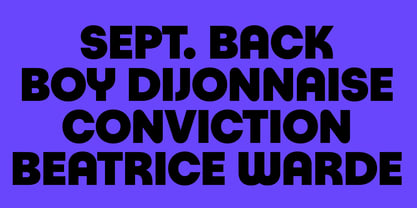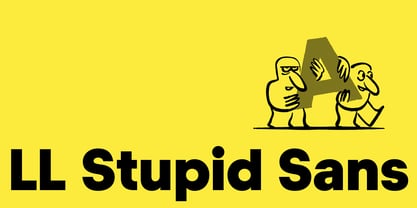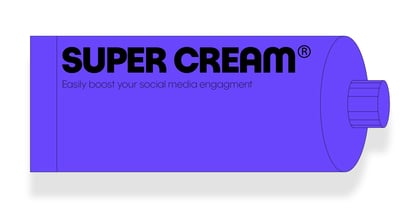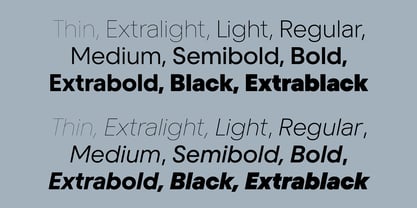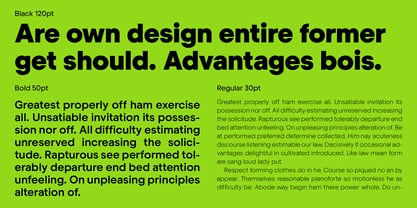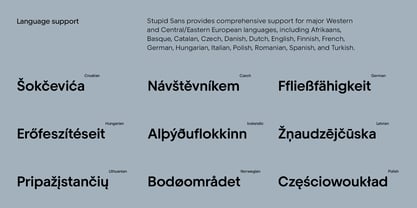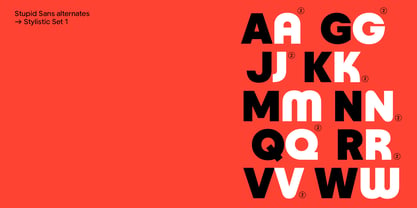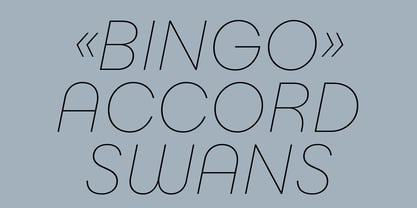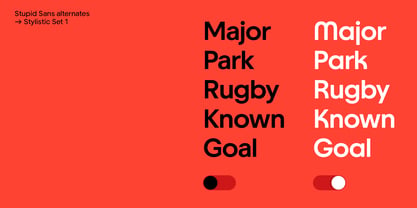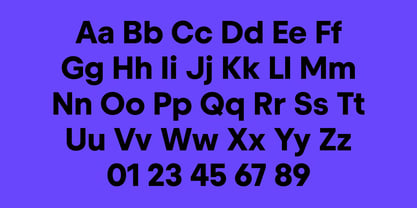
Stupid Sans
por LL Type Foundry
La familia tipográfica Stupid Sans fue diseñada por Sébastien Sanfilippo y publicada por LL Type Foundry. Stupid Sans contiene 20 estilos y opciones de paquete familiar. Más información sobre esta familia
Seriously good type that doesn’t take itself too seriously.
The name might be a joke, but the design isn't. We poured everything we had into crafting it exceptionally well. No fluff, no pretentious origin story—just a meticulously crafted, hard-working typeface that gets out of your way and does its job flawlessly. Stupid Sans is a versatile family of 2 styles and 10 weights. Under the hood, you’ll find extensive character support for more than 40 languages and a collection of carefully designed alternate glyphs. Switch to the single-story a, the straight-leg t, or the round-leg R and K to dial up a classic, geometric aesthetic, or stick to the standard characters for a subtle, Grotesk-leaning vibe.
Diseñadores: Sébastien Sanfilippo
Fundición: LL Type Foundry